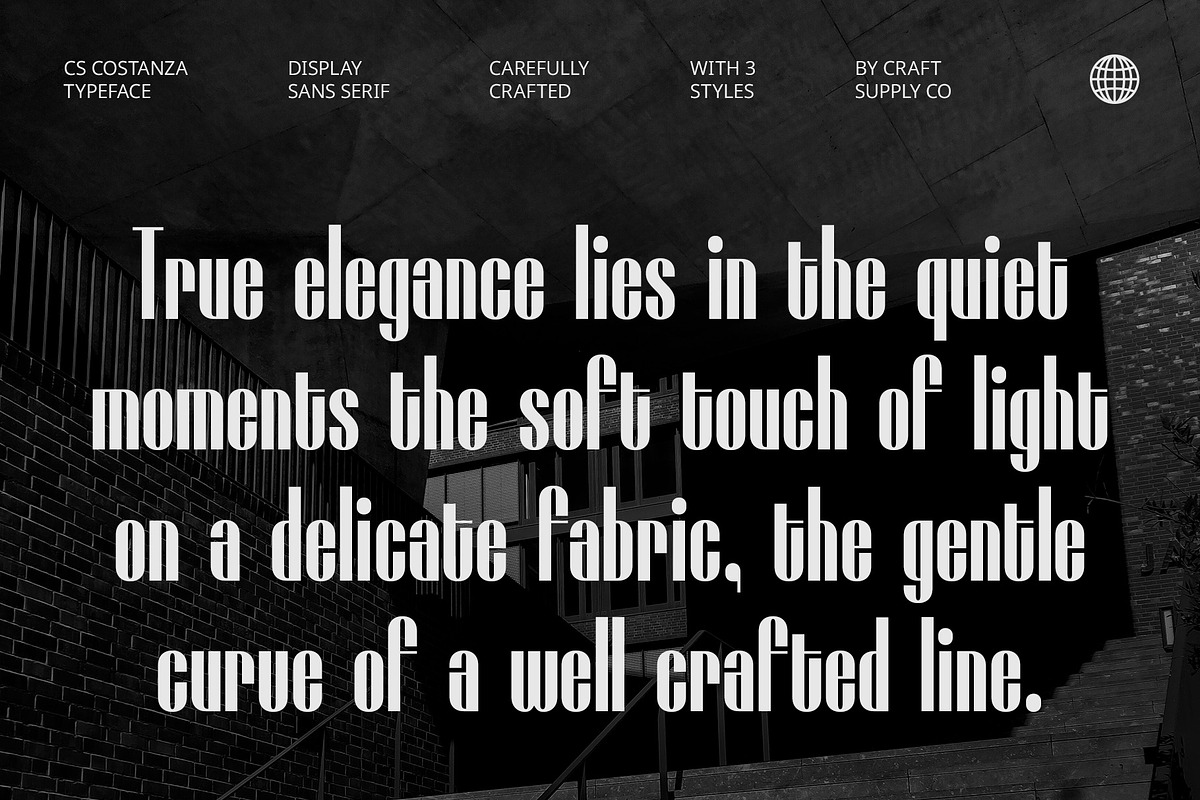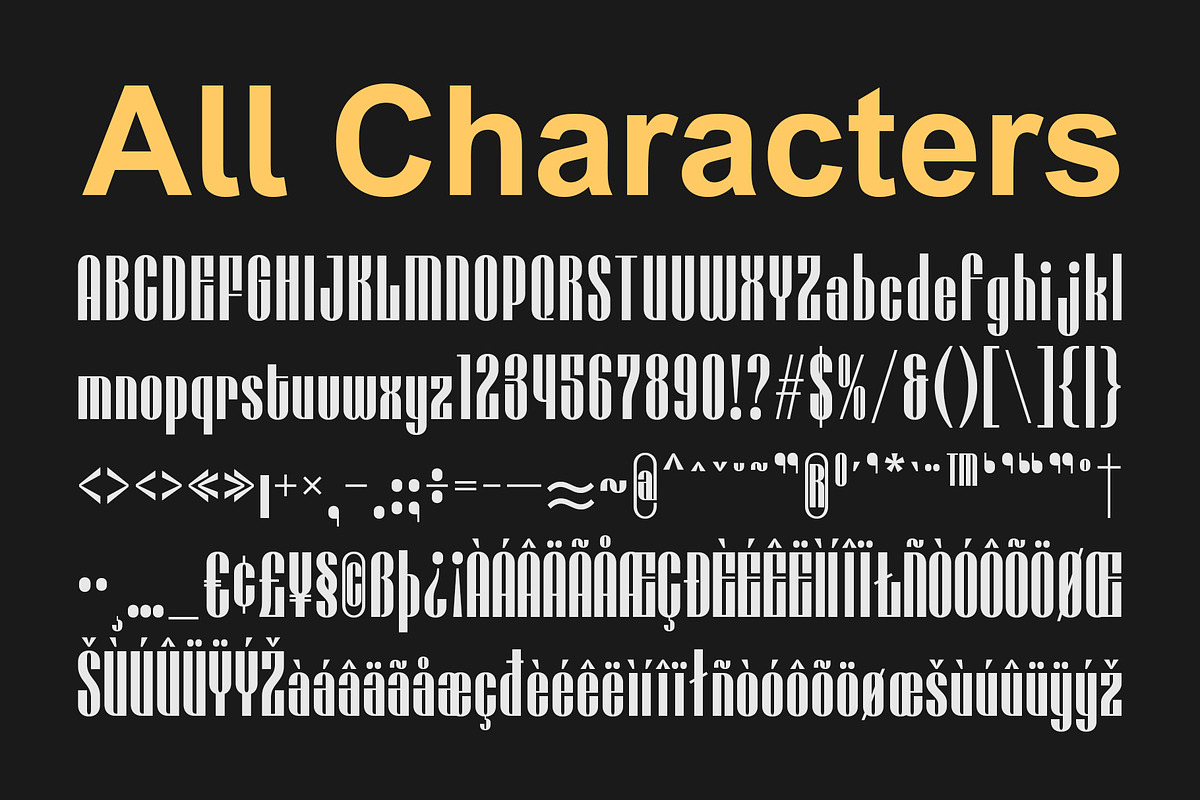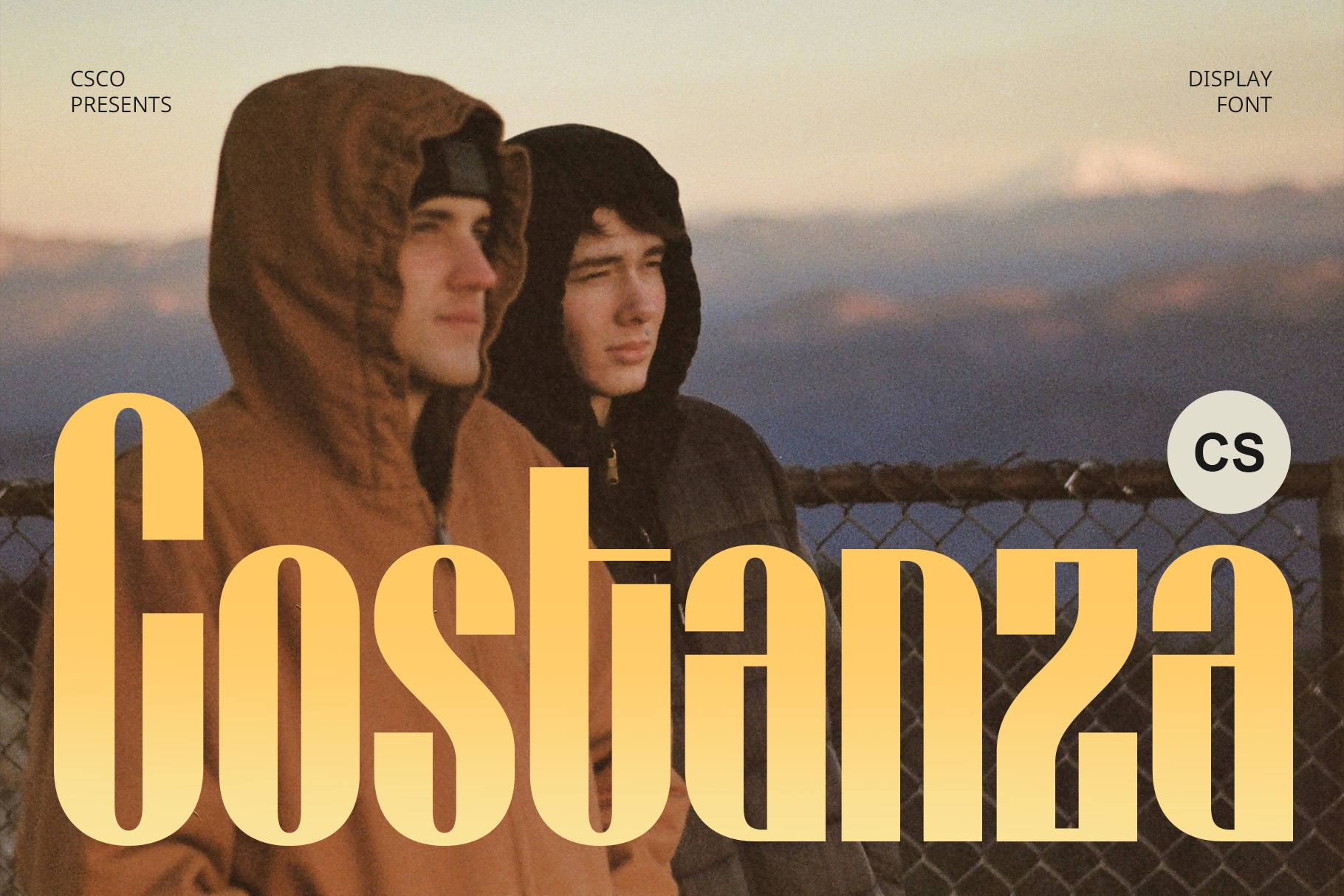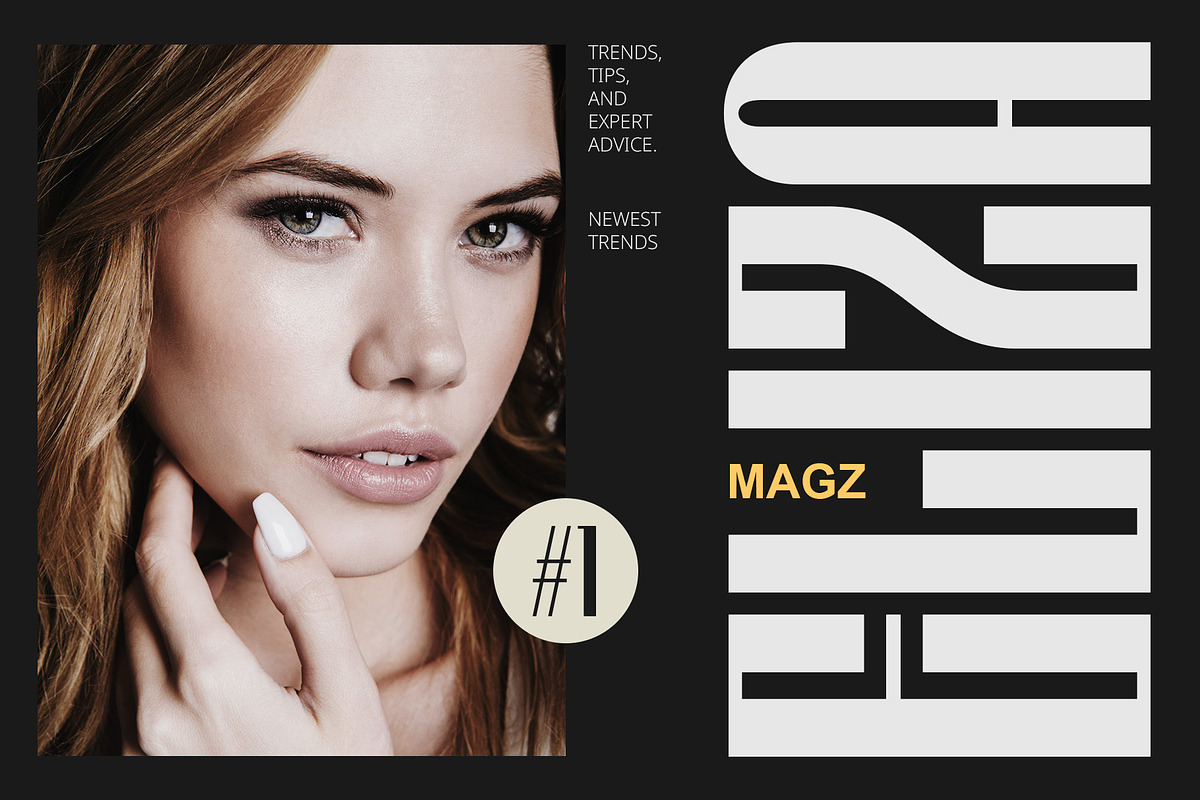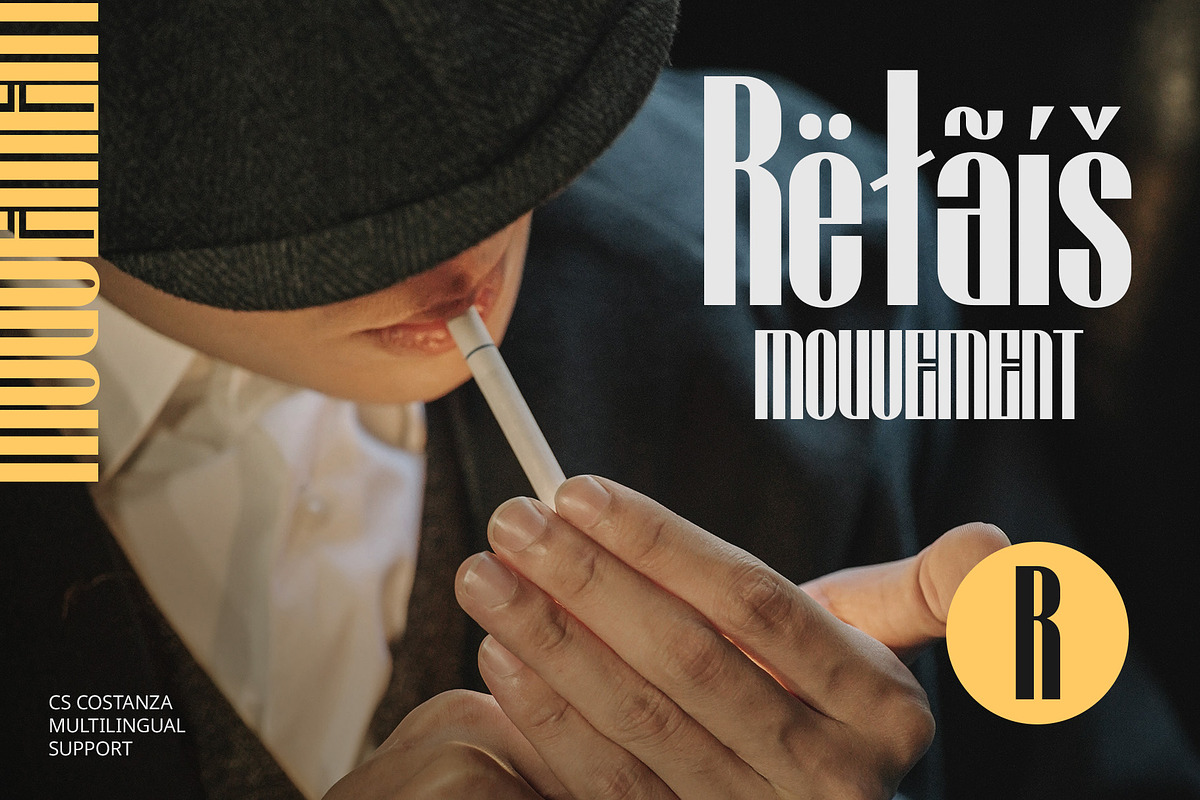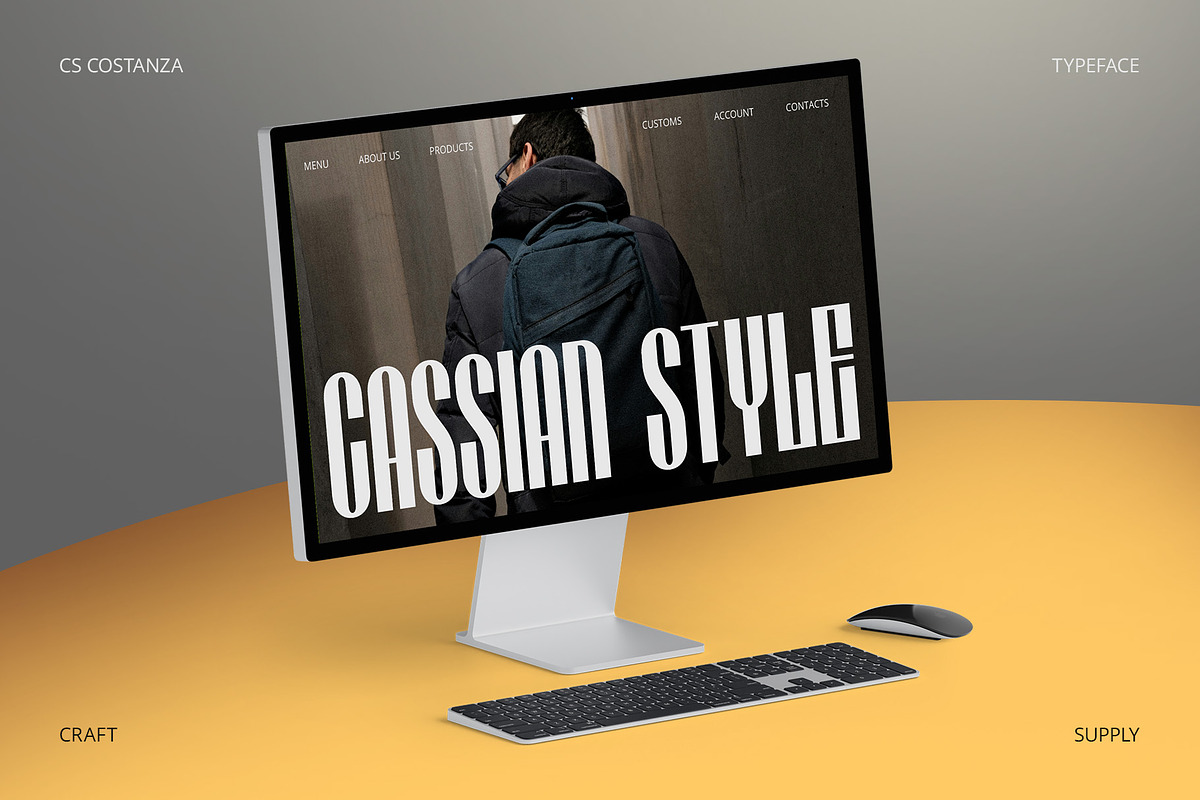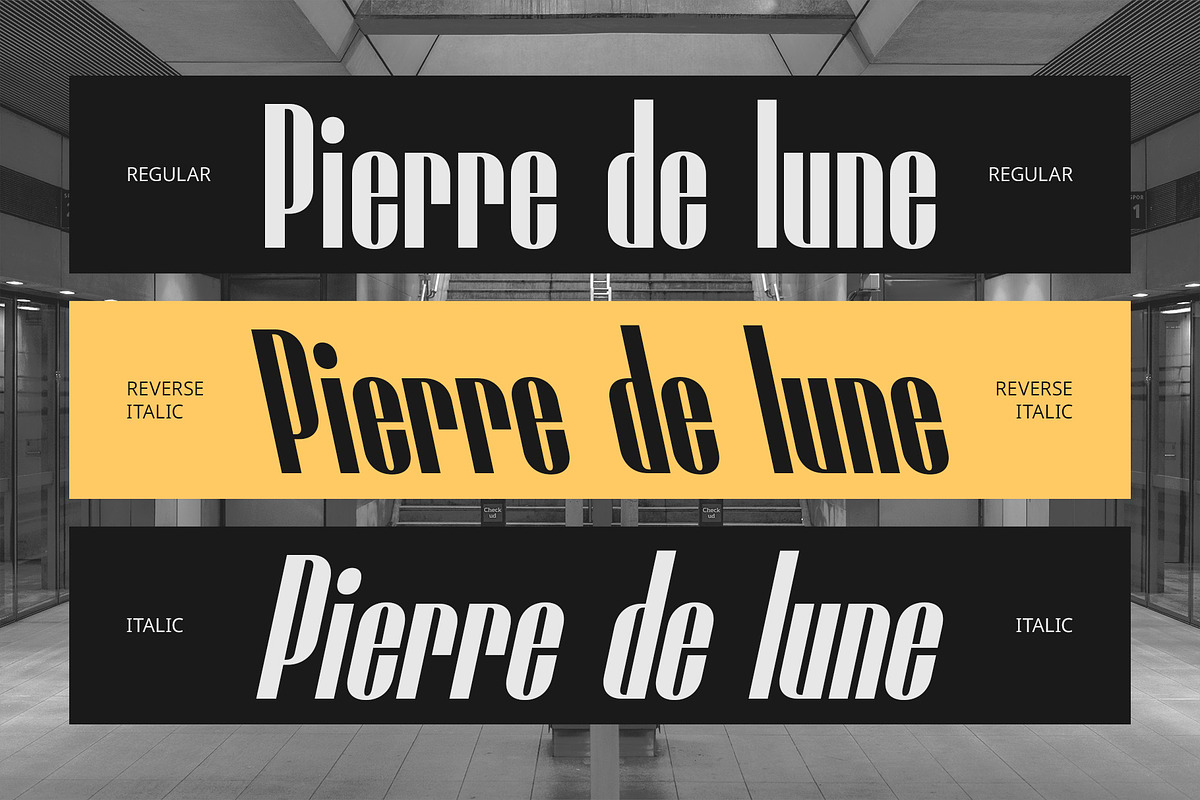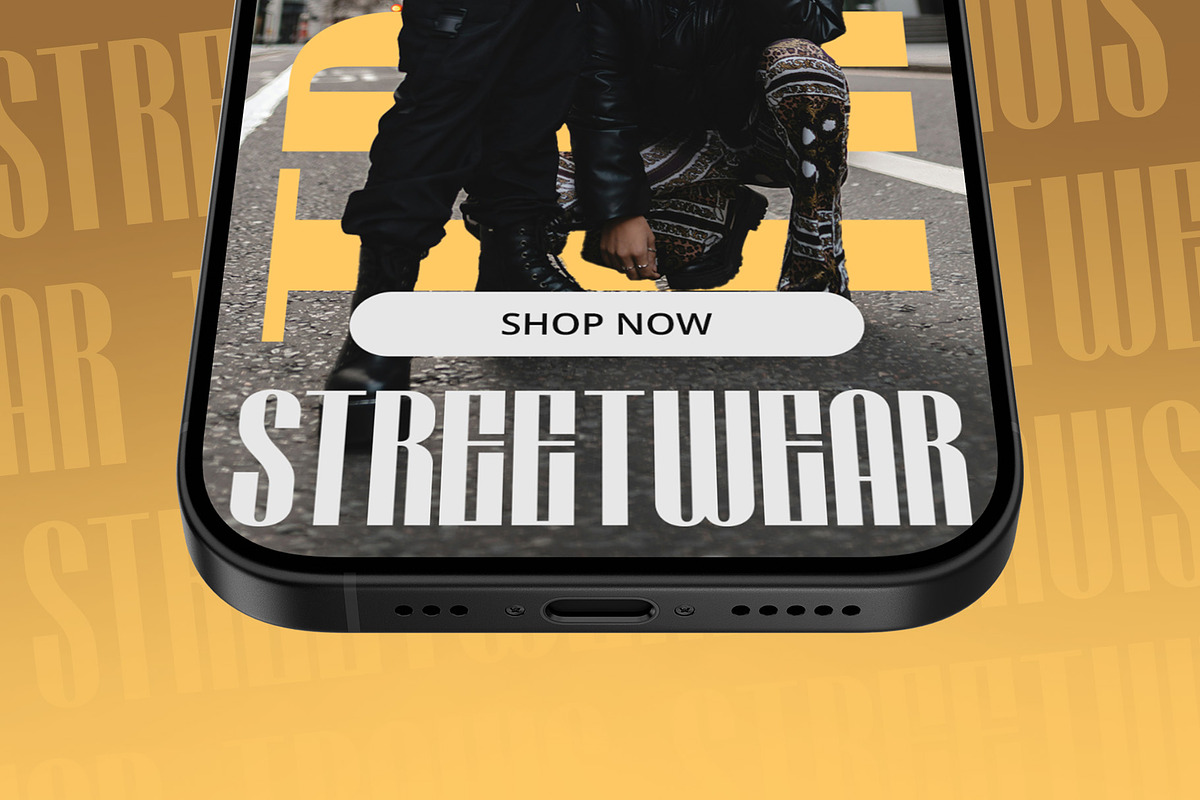
CS Costanza – Condensed Font
CS Costanza Font: Condensed Bold Sans-Serif Typography
Powerful, Clean, and Modern CS Costanza is a modern sans-serif font with a condensed and bold design, offering a striking balance of strength and sophistication. Its narrow yet solid characters convey a sense of power, authority, and stability, making it the perfect choice for designs that demand a strong, commanding presence. With its minimalist, unembellished design, this font is ideal for creating a sleek, professional appearance in any context.
Strong, Impactful, and Stylish The condensed structure of CS Costanza ensures efficiency in space while maintaining a bold, striking visual impact. The thickness of each letter adds to its solid, contemporary feel, making it perfect for use in headlines, posters, and branding. Whether you’re designing for a corporate client or working on creative projects, this font offers an uncompromising balance of clarity and style, ensuring your message is both legible and visually captivating.
Perfect for Branding and Marketing CS Costanza’s clean, condensed design makes it perfect for branding, advertisements, and marketing materials that need to convey modernity and professionalism. Its bold, straightforward character ensures that your message stands out with confidence, while its sleek, condensed form makes it efficient for tight spaces or designs requiring a compact, yet powerful, typeface.